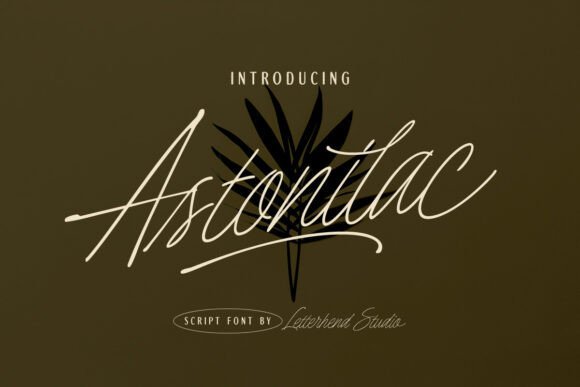
The Elegance of Astonilac Font: A Designer’s Delight
I’ll never forget the time I was working on a wedding invitation project, and my client asked for a font that exuded sophistication and elegance. I scoured the internet, trying out font after font, but nothing seemed quite right. That was until I stumbled upon Astonilac Font. With its flowing strokes and refined curves, it was love at first sight! In this article, I’ll share my experience with Astonilac, its features, and how to make the most of it in your designs.
A Personal Review of Astonilac Font
- ✨ Elegant and sophisticated feel
- ✅ Perfect for branding, wedding invitations, and high-end packaging
- 💫 Fluid and refined strokes that add a touch of luxury to any design
- 🎨 Highly versatile and works well with a variety of design styles
While Astonilac is an amazing font, there are a few things to keep in mind:
- ⚠️ It may not be the best choice for body text, as it’s quite ornate and may be difficult to read in large blocks.
- 🤔 Some users may find the font a bit too delicate for certain design applications.
The Story Behind Astonilac Font
Astonilac was designed by a team of typographers who wanted to create a font that exuded elegance and sophistication. Inspired by classic calligraphy and refined curves, Astonilac is the perfect choice for designers looking to add a touch of luxury to their work.
Q: What is Astonilac Font best used for?
A: Astonilac Font is perfect for branding, wedding invitations, elegant logos, fashion designs, and high-end packaging.
Q: Can I use Astonilac Font for body text?
A: While Astonilac is a beautiful font, it’s not recommended for body text due to its ornate and delicate nature.
Q: Does Astonilac Font come with OpenType features?
A: Yes, Astonilac Font comes with a range of OpenType features, including ligatures, stylistic alternates, and glyphs.